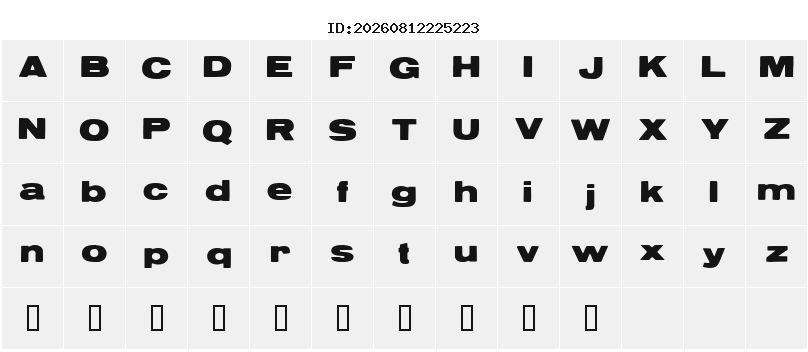
Reservoir Grunge Preview
• Font Name: Reservoir Grunge
• Full Font Name: Reservoir Grunge
About Reservoir Grunge.ttf
Reservoir Grunge.ttf is a modern, elegant sans-serif font designed for ultimate readability and visual harmony. Perfect for branding, headlines, web design, and print materials.